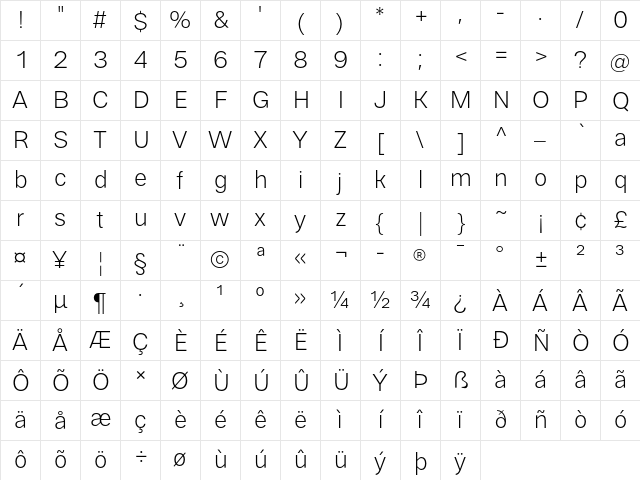
Cabrion is a composed and adaptable typeface that performs quietly and consistently across a wide range of design contexts. Its slender proportions lend an understated elegance to any composition.